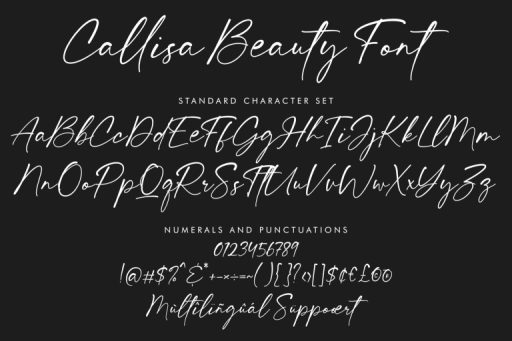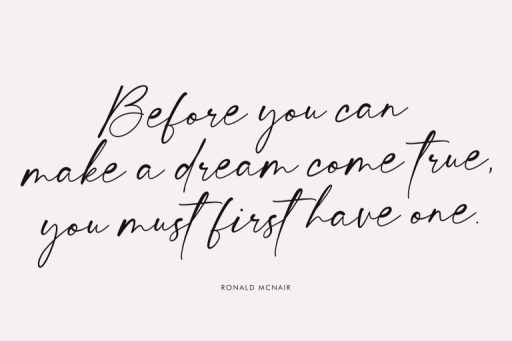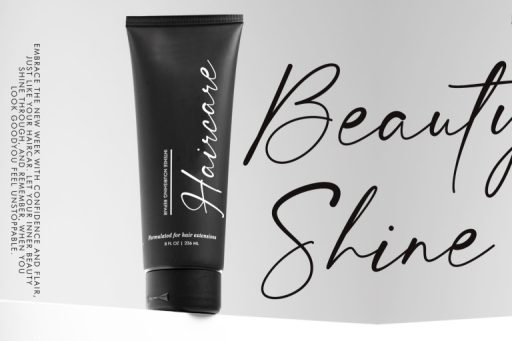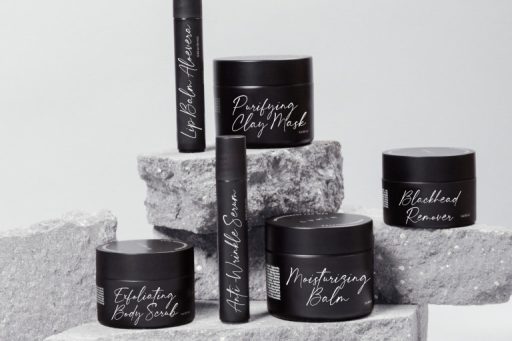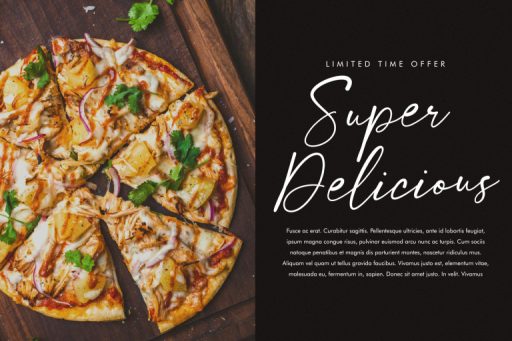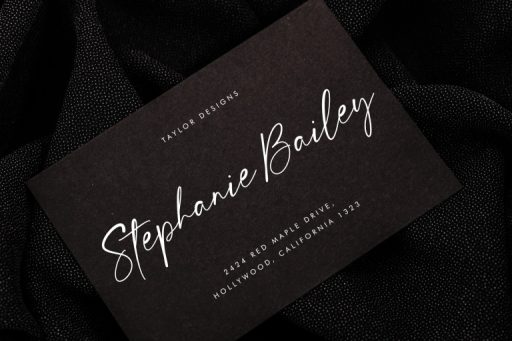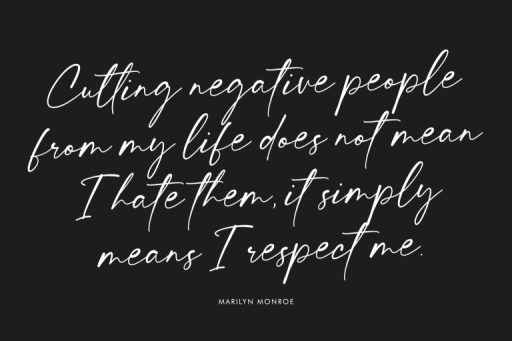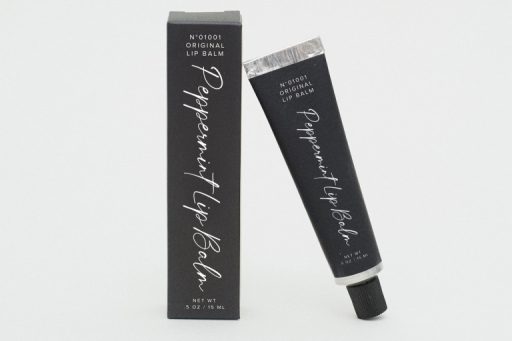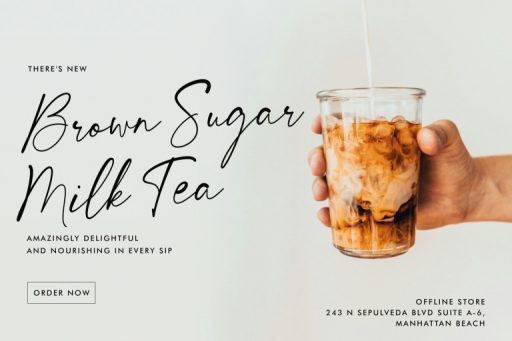
Callisa Beauty Font
Callisa Beauty Font – Business Branding Font from Jimtype Studio
Introducing Callisa Beauty Font, a captivating script font designed to elevate your creative projects. Tailor-made for branding, advertisements, web design, social media, greeting cards, logos, and more, this font is your perfect choice for adding elegance and personality to your designs.
Elevate your brand with the refined charm of Callisa Beauty Font. Whether for logos or branding materials, this font ensures a distinctive typographic identity that leaves a lasting impression.
Callisa Beauty Font is your all-in-one solution for projects that demand elegance and versatility. Whether you’re enhancing your brand image, creating impactful advertisements, or designing beautiful greeting cards, this font ensures your work radiates beauty and sophistication.